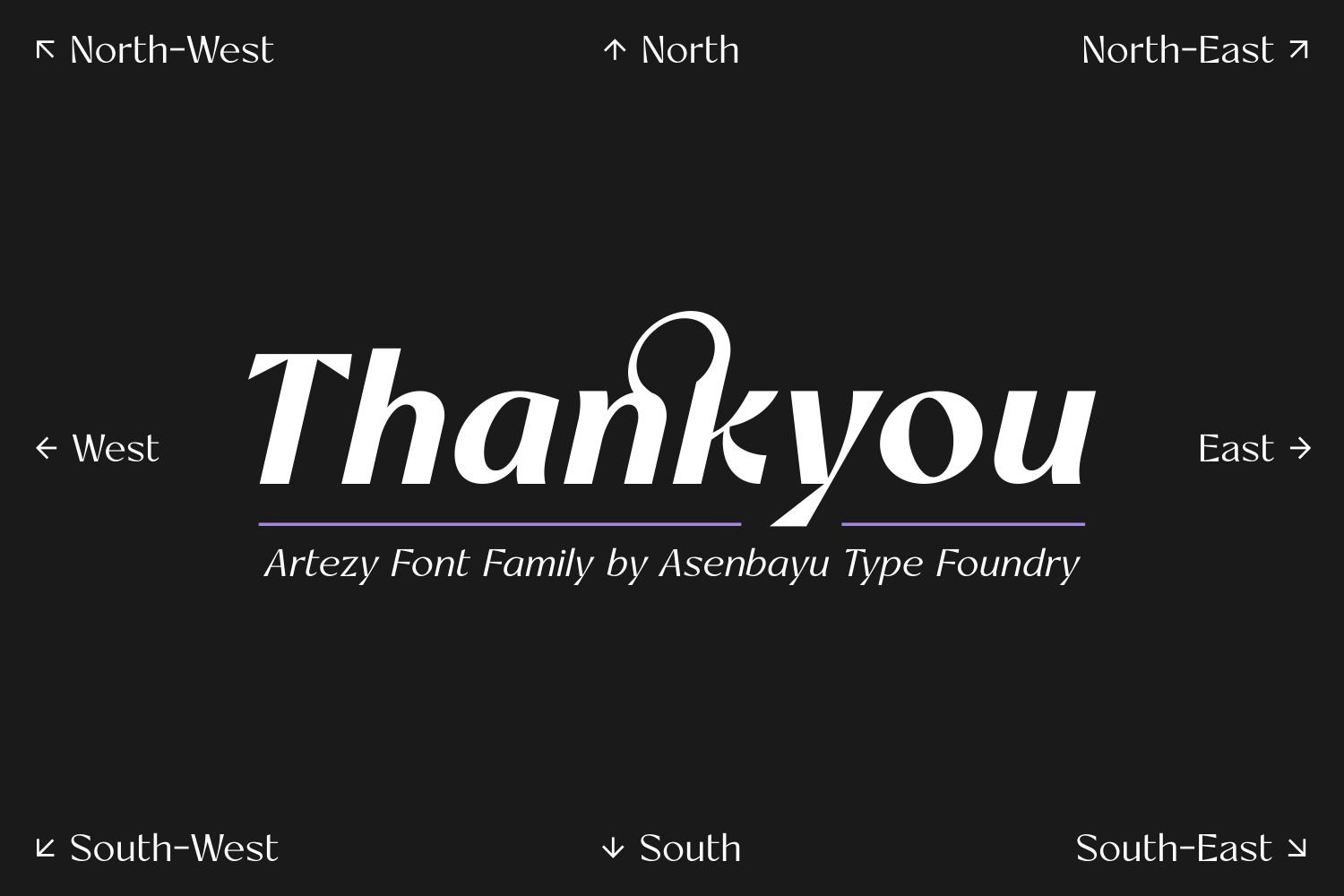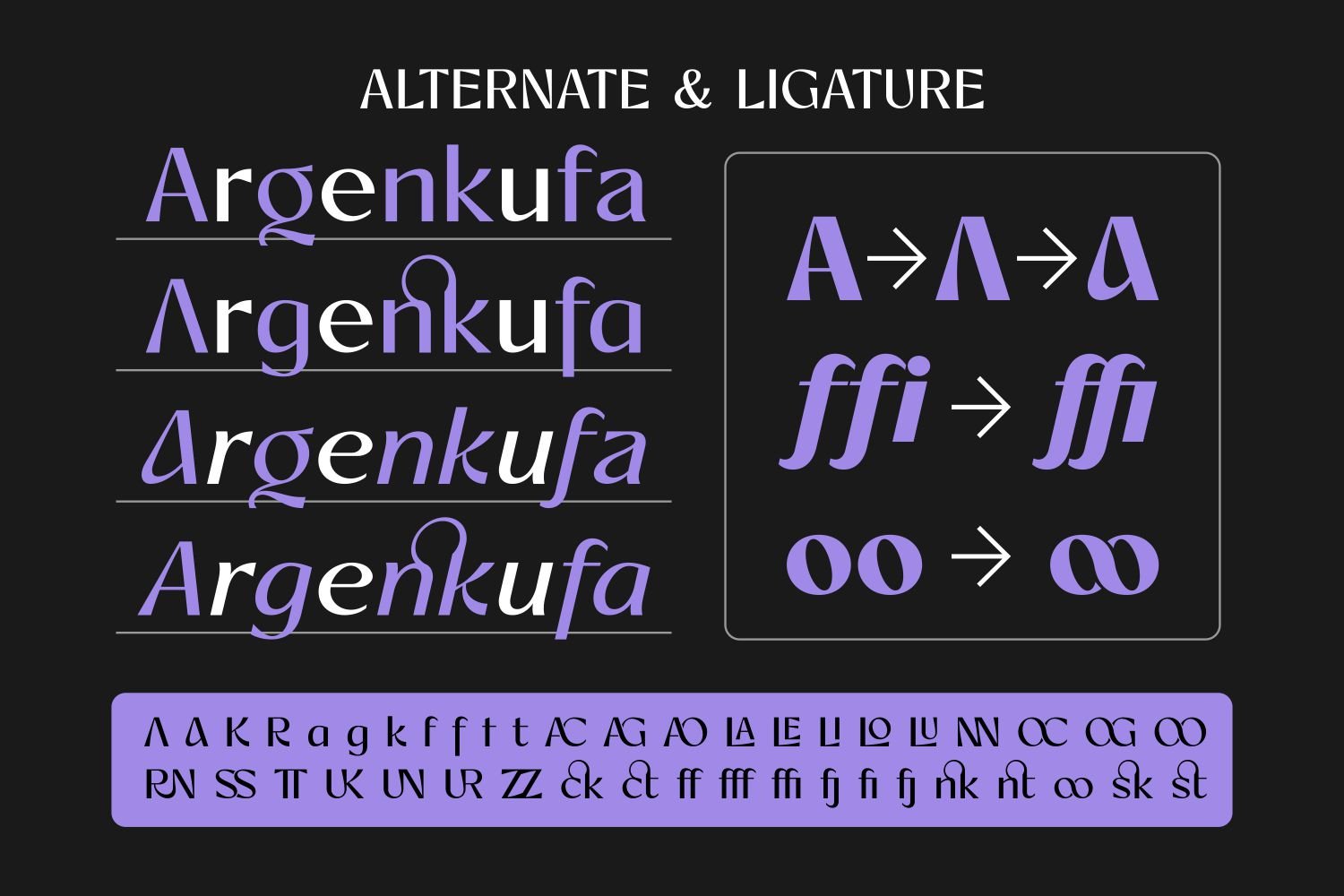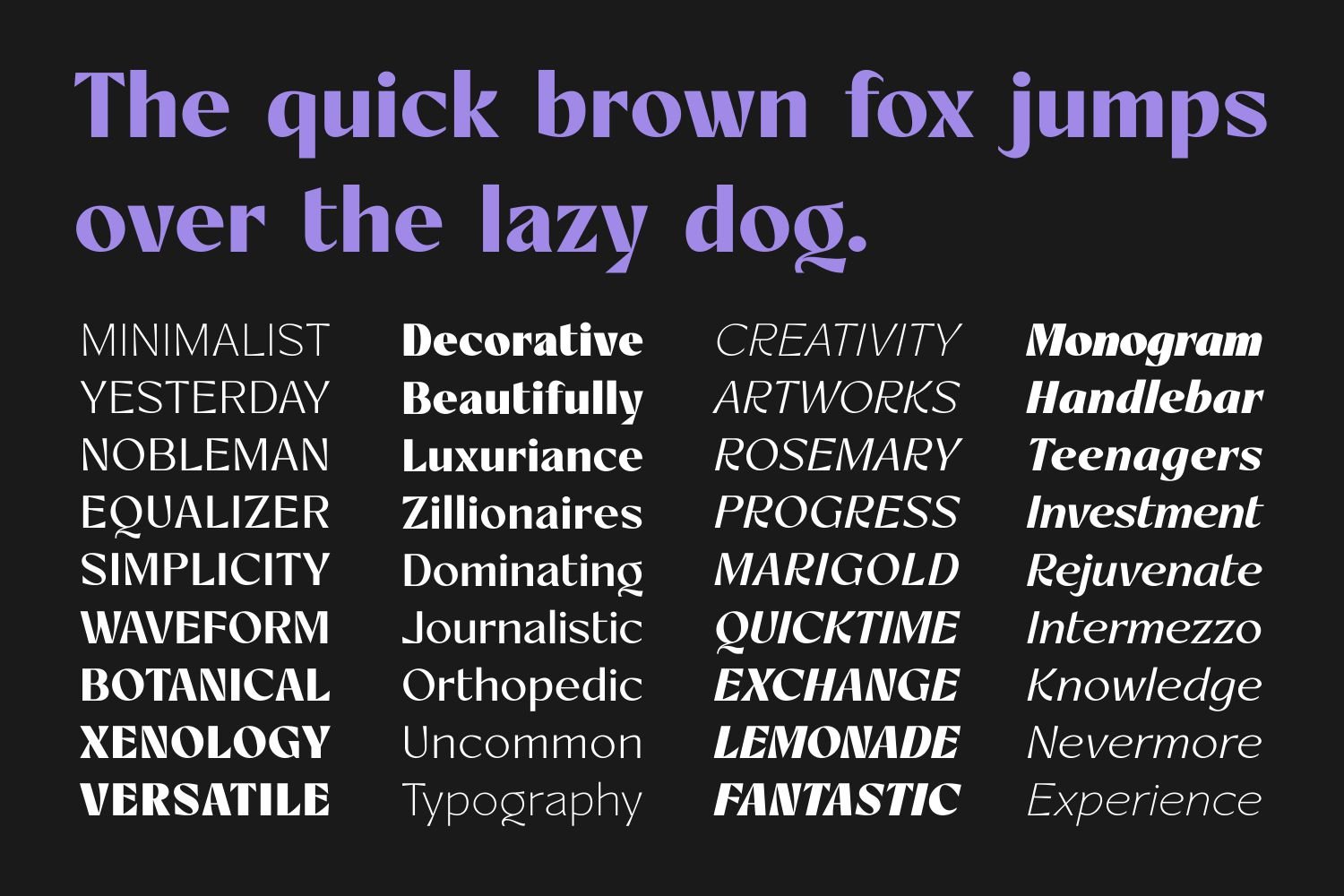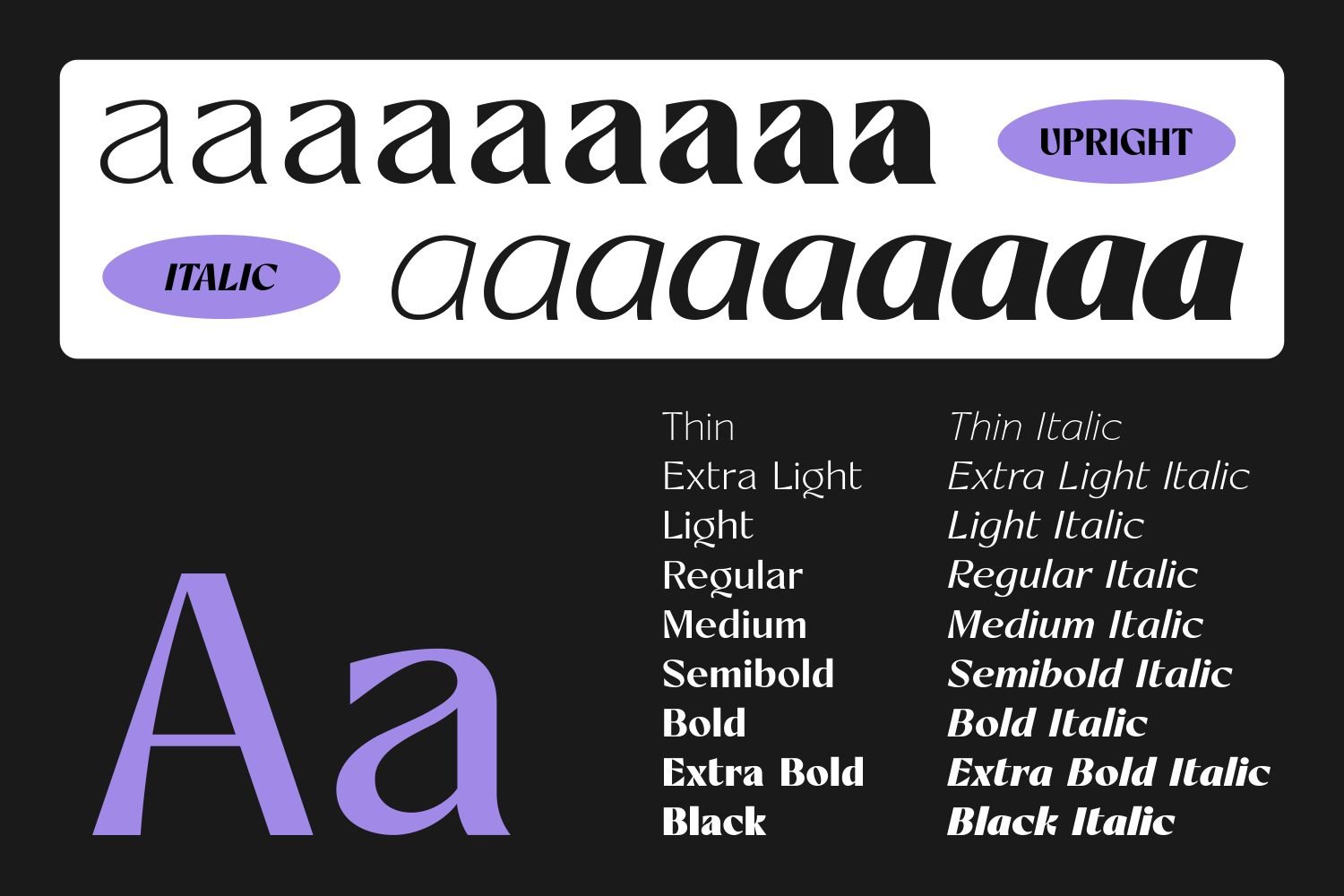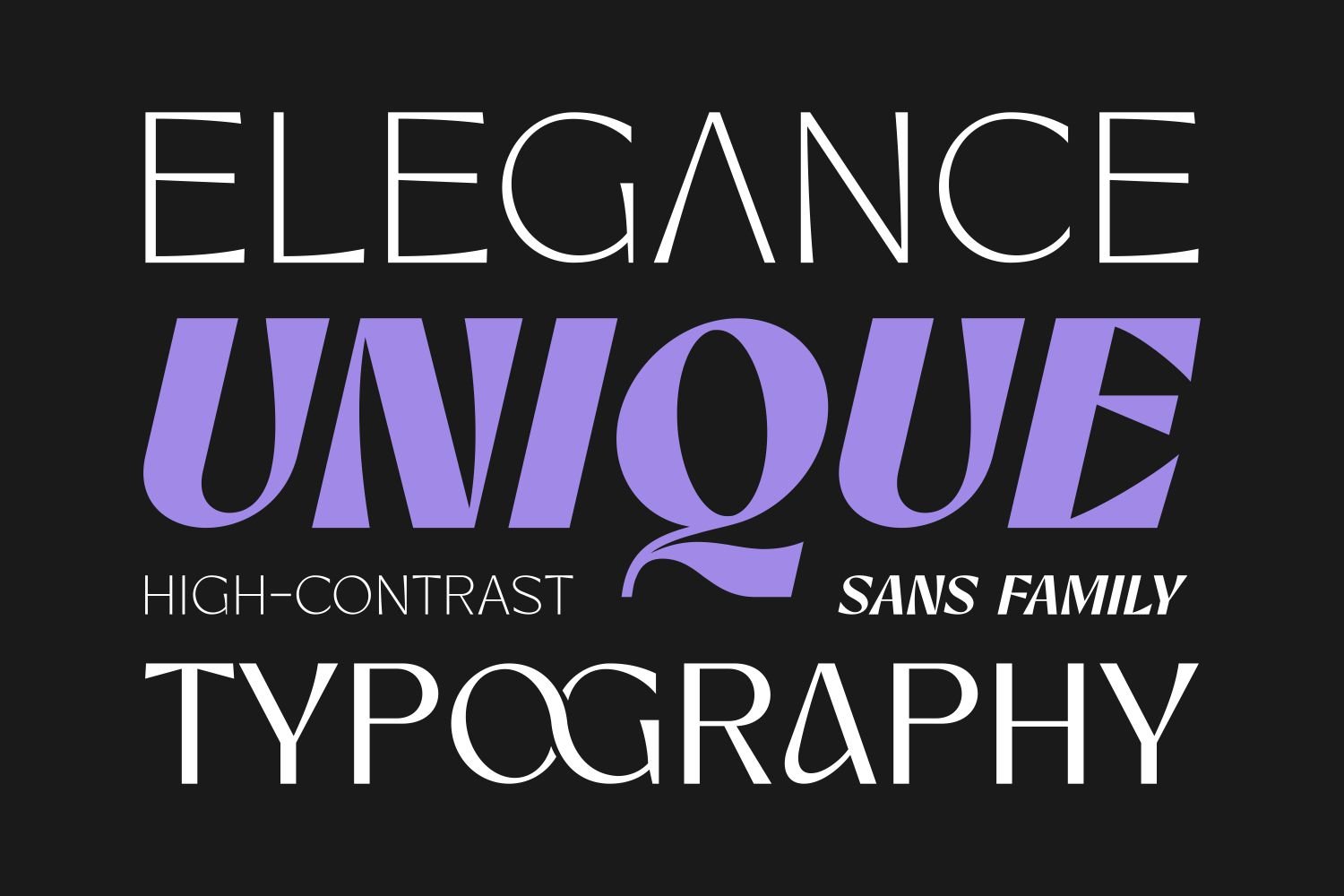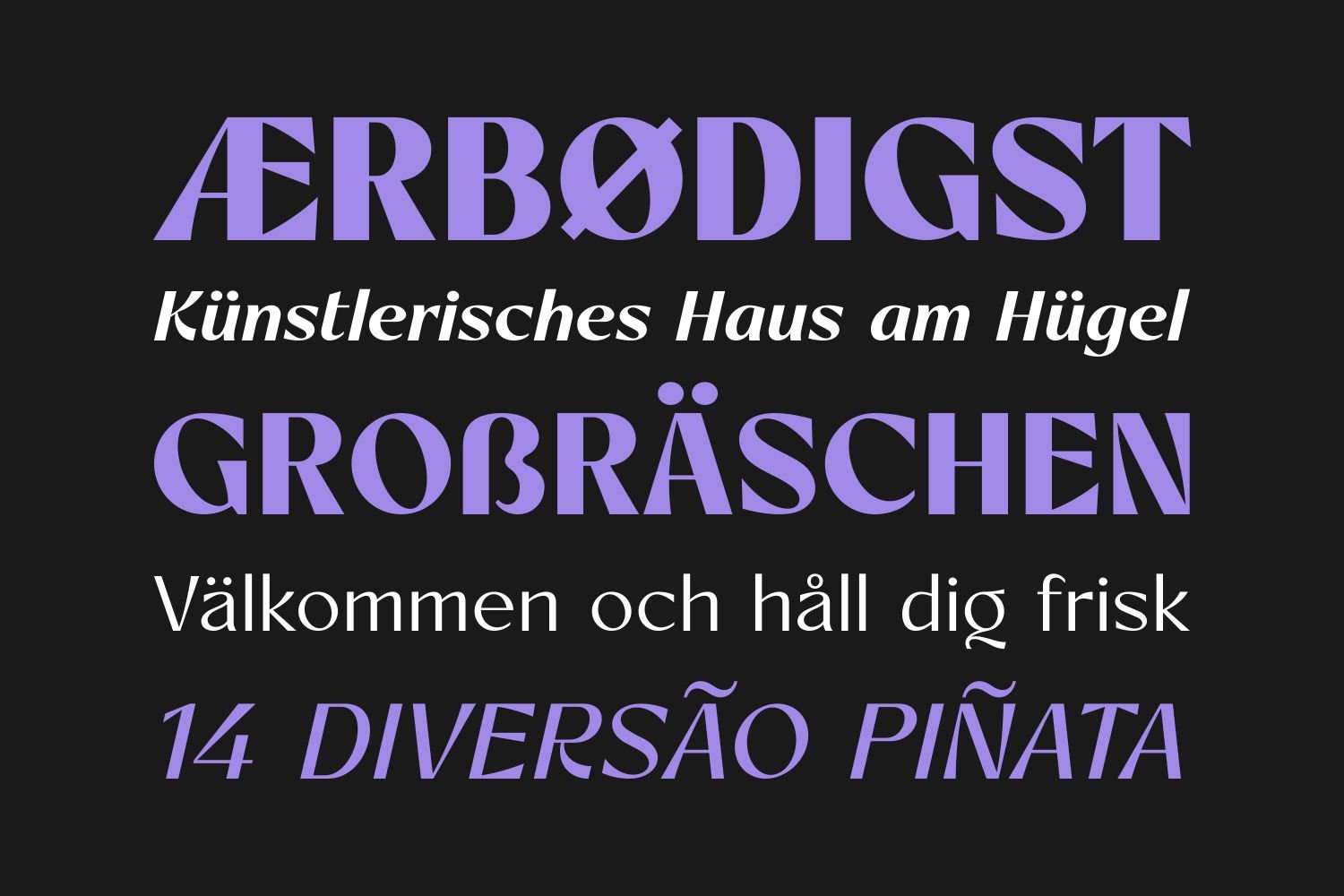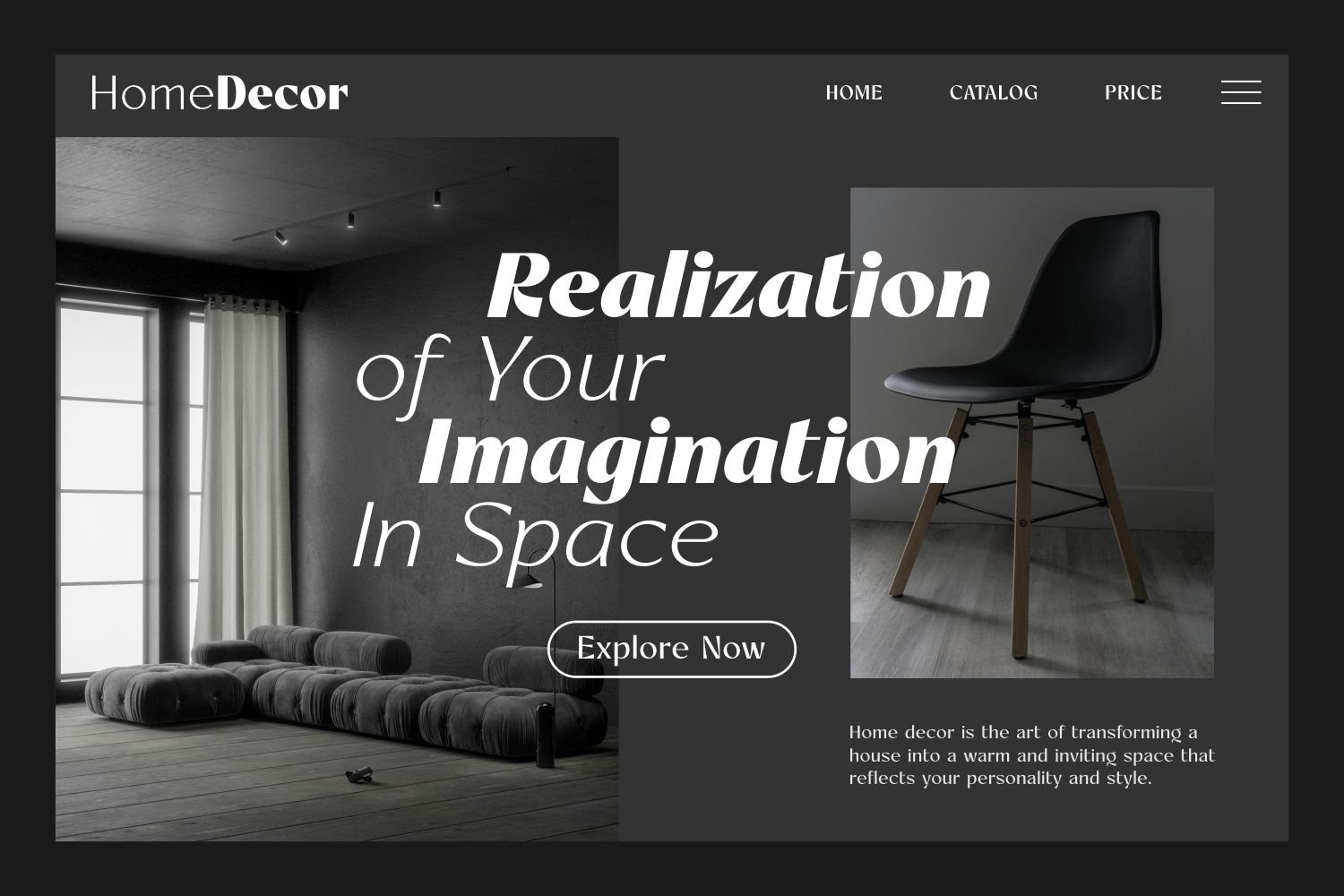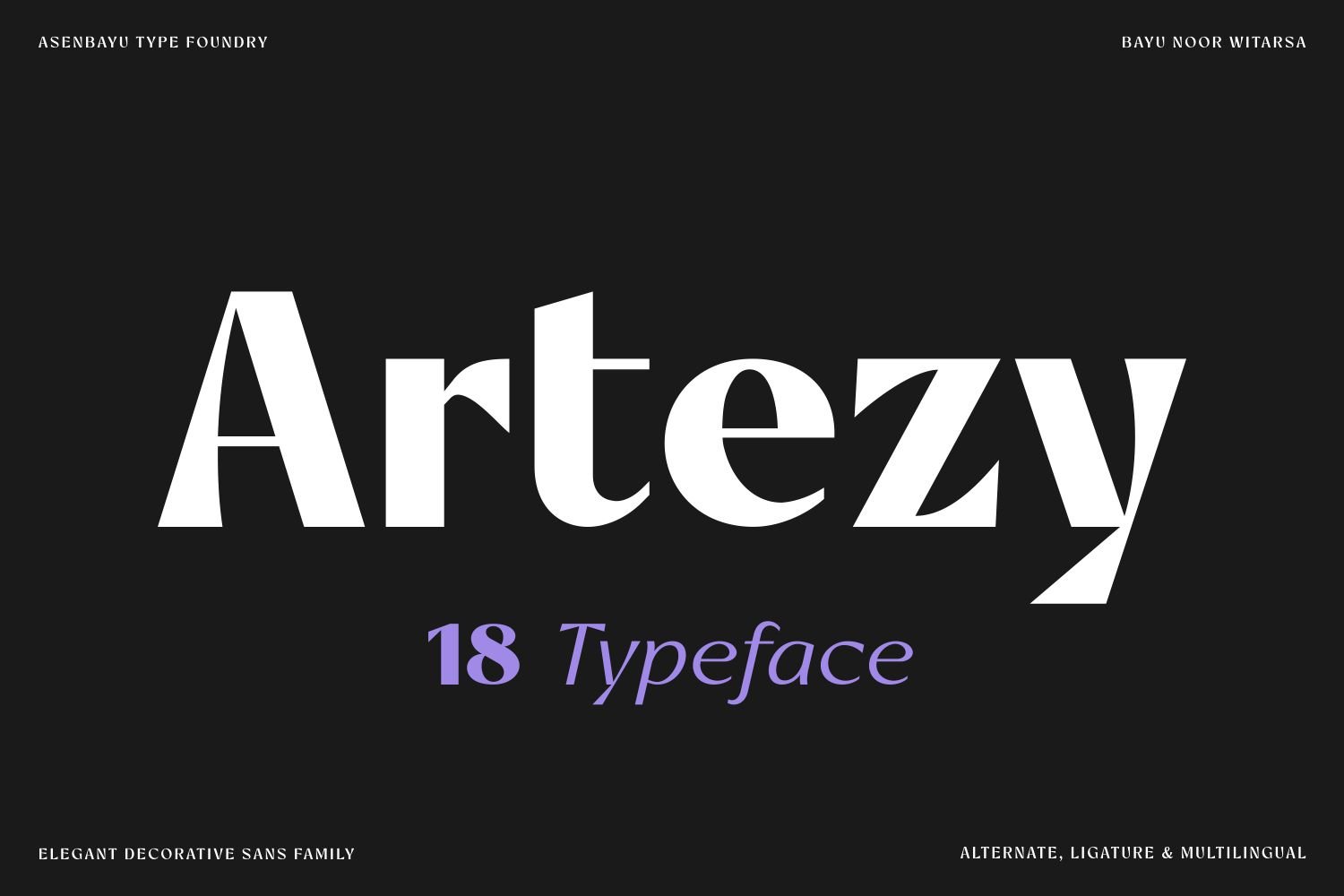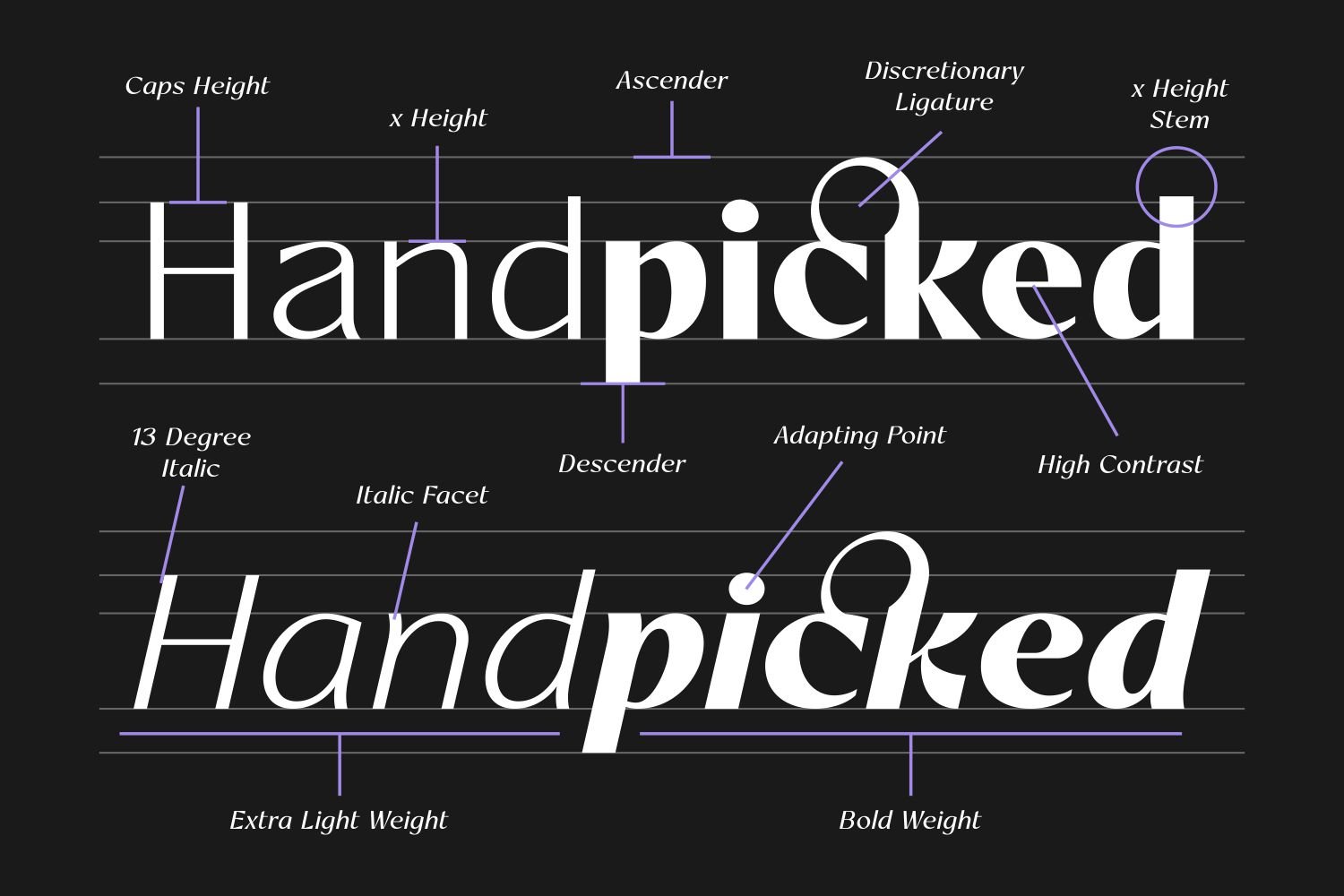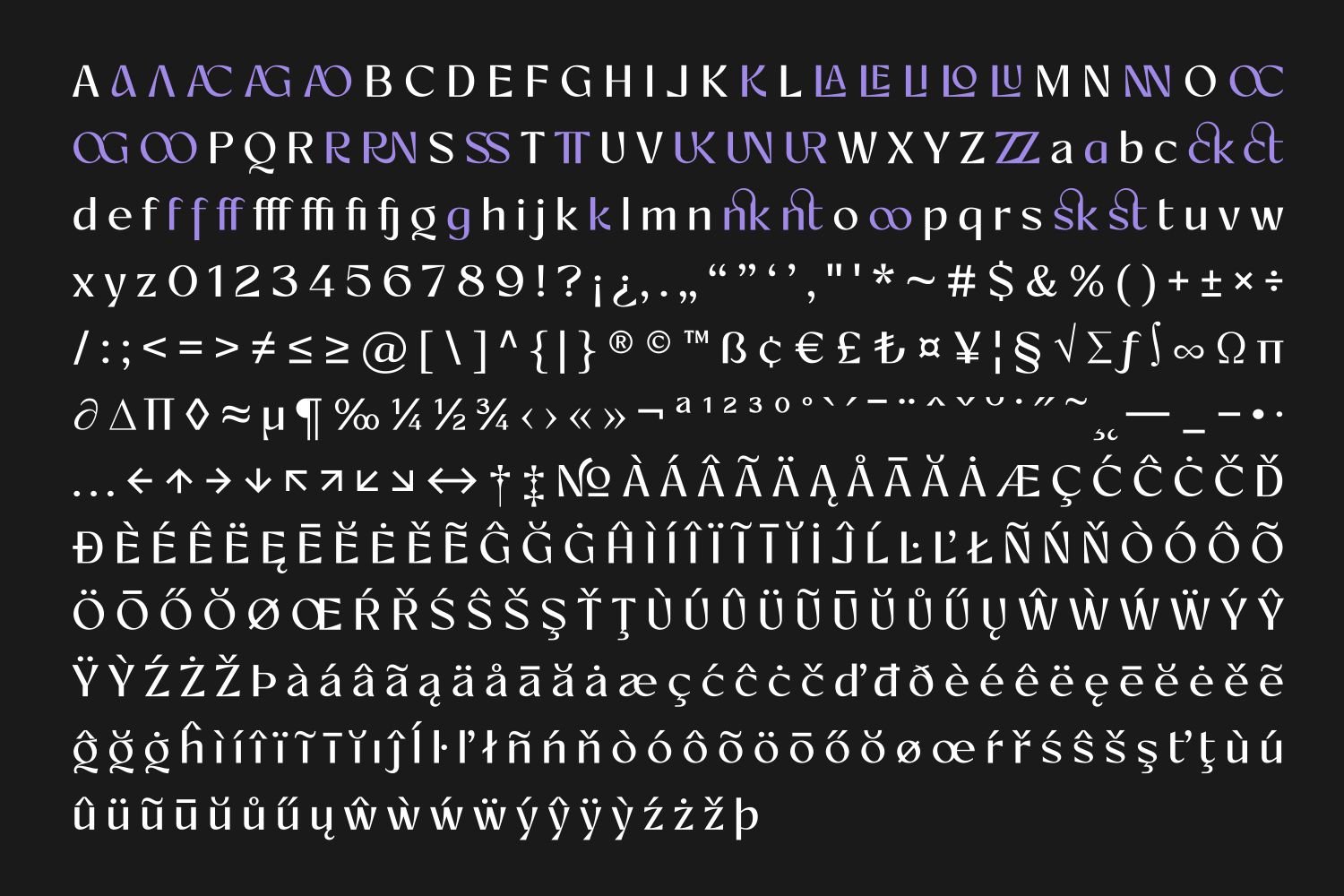
Artezy - Elegant Sans Serif Font Family
The Artezy font family is a sophisticated collection of sans serif fonts, inspired by the fusion of 'Art' and 'Ease.' This family comprises 18 fonts, each defined by luxurious aesthetics and modern lines—creating a high-contrast visual appeal. Perfectly suited for luxury branding, captivating logo designs, and various creative projects, Artezy brings a touch of class to magazines, posters, packaging, labels, websites, and more.
- 18 Fonts spanning from Thin to Black weights
- Standard glyphs with stylistic alternates
- Stylistic ligatures
- Symbols and punctuation
- Supports multiple languages